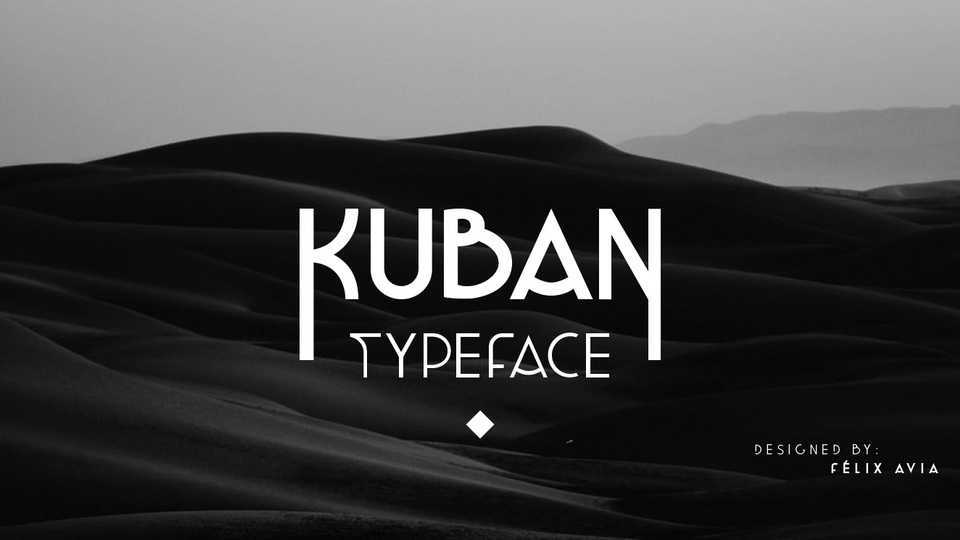
Download Kuban Pro typeface, a geometric display font family with four styles with a unique look. Kuban Pro is best for logos, posters, headlines, album covers and other display uses.
Designer: Felix Avia